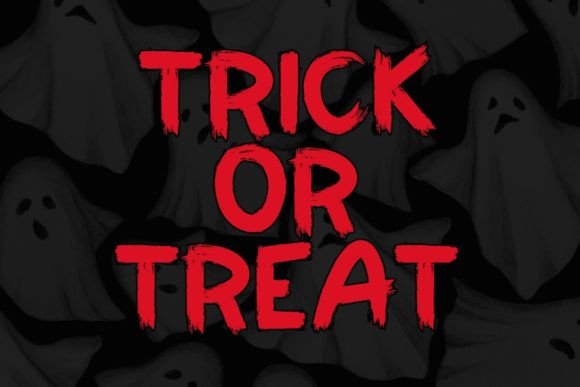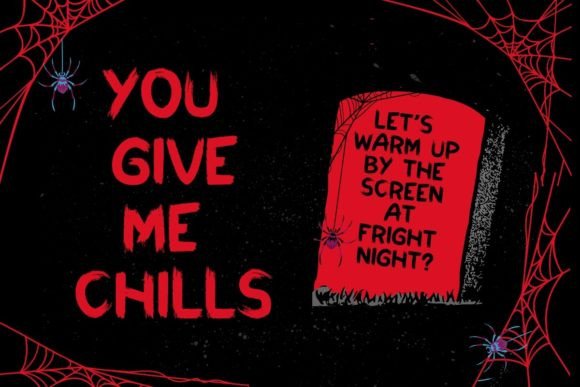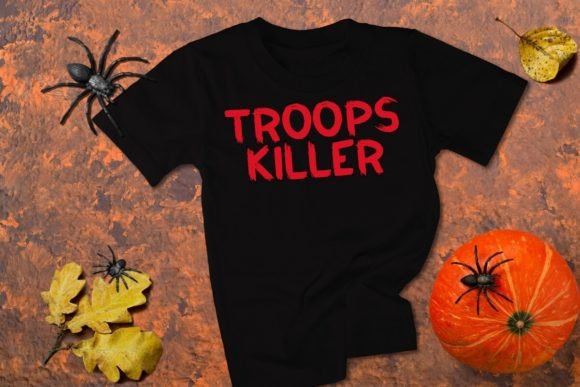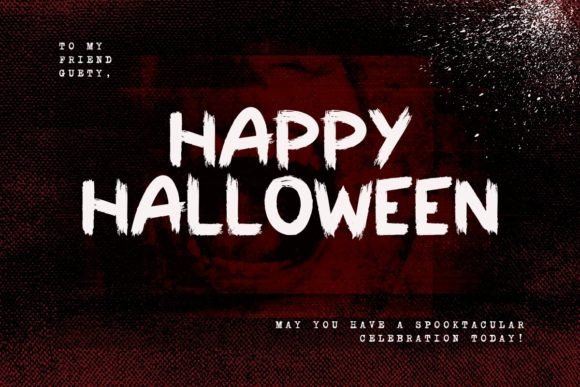
Introduction to Scary Killer Font
Do you remember the rush of excitement when you stumbled upon that perfect design resource for your creative project? It’s a moment we’ve all experienced – a spark of inspiration that sets off a chain reaction of ideas, and before you know it, your imagination is running wild. For designers, finding that one elusive element that brings a project to life can be a game-changer.
Enter the Scary Killer Font – a Horror Halloween font that’s guaranteed to send shivers down your spine and elevate your design game. With its eerie and mysterious vibe, this font is a must-have for any designer looking to create a high-quality, spine-tingling design. Whether you’re working on a t-shirt design, mug design, or digital project, the Scary Killer Font is sure to add an extra layer of depth and intrigue to your work.
Key Features of Scary Killer Font
- High-quality design resource with a unique, spooky aesthetic, perfect for creative projects.
- Unique, hand-drawn design elements that add a touch of eeriness to your creative project.
- Perfect for Halloween-themed designs, horror movies, or any project that requires a spooky atmosphere.
Honest Review: Scary Killer Font
As a designer, I’m always on the lookout for unique design resources to enhance my creative projects. Recently, I stumbled upon the Scary Killer Font, and I have to say it’s been a game-changer.
- High-quality design: The font is well-crafted, with a clear and cohesive design that’s perfect for creating a spooky atmosphere.
- Limited character set: The font only includes uppercase letters, which can be limiting for certain design projects.
- Not ideal for body text: While the font is great for headlines and titles, it’s not suitable for large blocks of text due to its bold and eye-catching nature.
Overall, I’m impressed with the Scary Killer Font and would recommend it for designers looking to add a touch of horror to their creative projects. With its high-quality design and transparent background, it’s a valuable addition to any design resource collection.
Scary Killer Font
The Scary Killer Font is a free design resource perfect for adding a spooky touch to your creative projects. This high-quality font features a transparent background, making it easy to overlay on any image or design.
Tips for Getting the Most Out of the Scary Killer Font
To get the most out of the Scary Killer Font, experiment with different font sizes, styles, and colors to create a unique look.
Combine the font with other design elements, such as images or graphics, to create a cohesive and spooky design.
The Scary Killer Font is perfect for:
Designing Halloween-themed graphics or party invitations.
Creating spooky text overlays for horror movie posters or trailers.
Adding a touch of eeriness to your social media posts or blog articles.